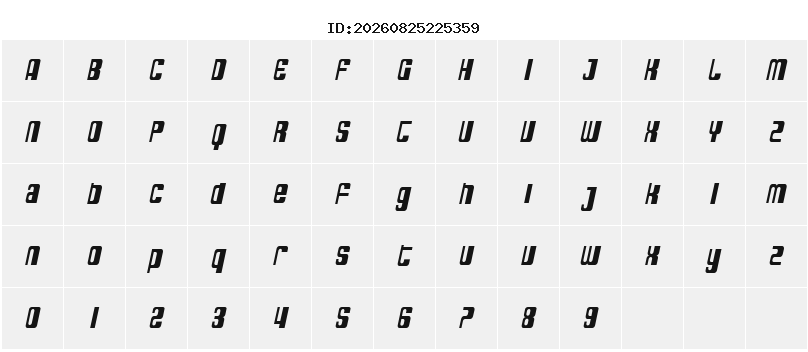
SF DecoTechno Condensed Preview
• Font Name: SF DecoTechno Condensed
• Font Style: Oblique
• Full Font Name: SF DecoTechno Condensed Oblique
About SF DecoTechno Condensed.ttf
SF DecoTechno Condensed.ttf is a modern, elegant sans-serif font designed for ultimate readability and visual harmony. Perfect for branding, headlines, web design, and print materials.